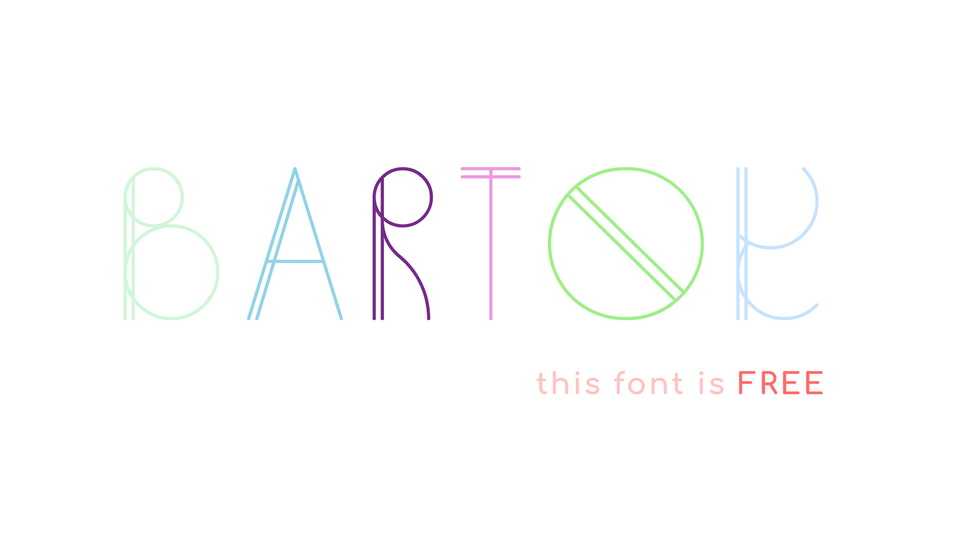
Download Bartok font, a creative display typeface inspired by geometric shapes and Art Deco. Bartokt is perfect for posters, headlines, short texts blocks and other artworks.